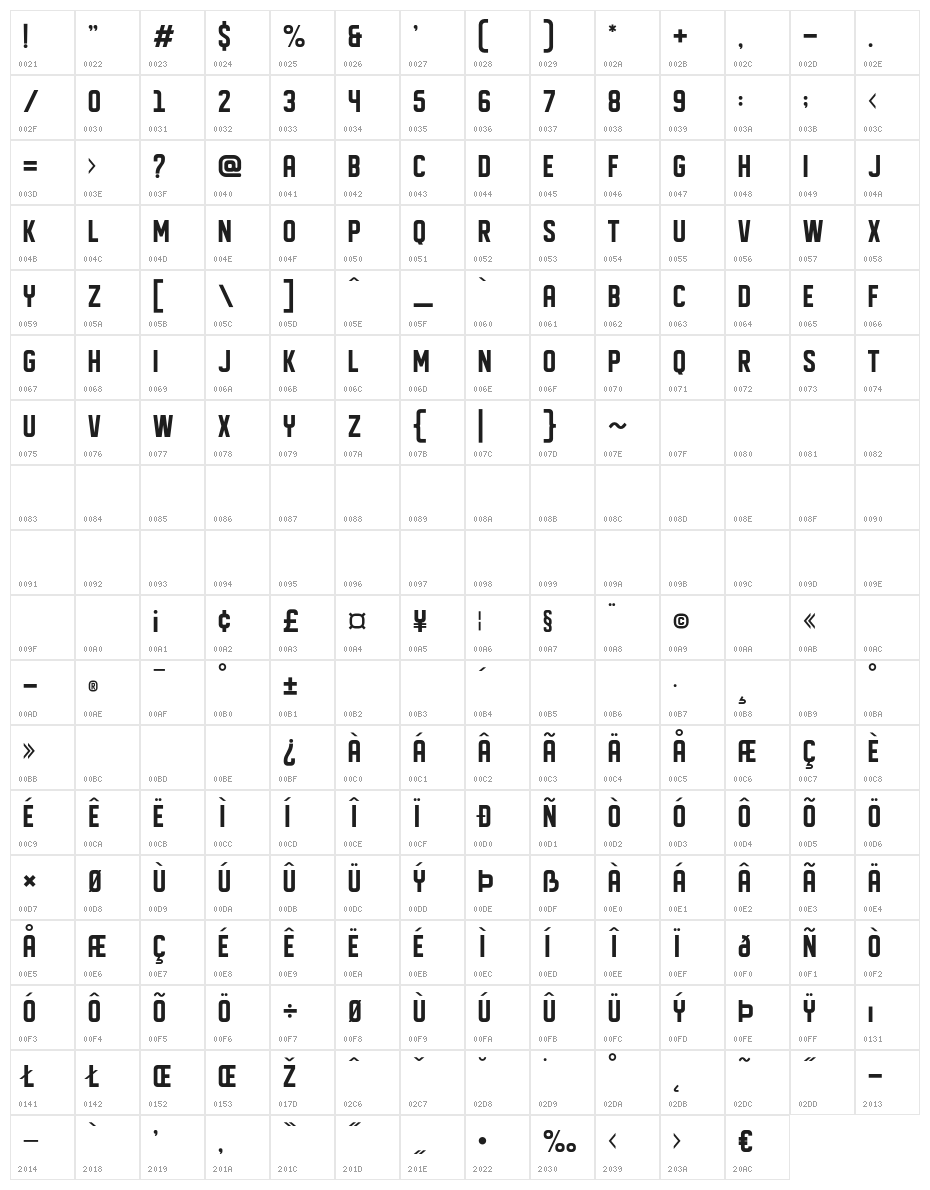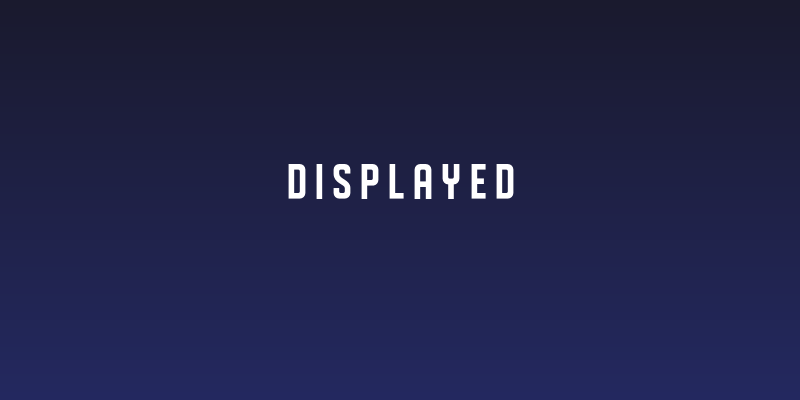
DISPLAYED Font
DISPLAYED Description
This font features a bold and impactful design with a strong geometric structure. The characters are uniformly constructed with consistent stroke widths, giving it a modern and robust appearance. The uppercase letters are particularly striking, with sharp angles and a slightly condensed form that enhances its boldness. The lowercase letters maintain the same geometric style, ensuring readability and cohesion across different text sizes. Numerals are clear and distinct, matching the overall boldness of the alphabet. The special characters are well-integrated, maintaining the font's strong visual presence. This font is ideal for making a statement, with its clean lines and powerful presence.
| Proposed Projects | Ideal for branding, headlines, posters, and any project requiring a strong visual impact. |